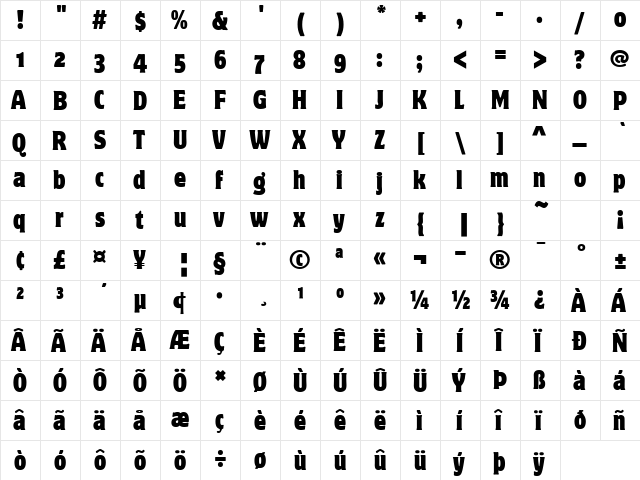
MotterCorpusITCOS-Condensed Roman
Design Context for MotterCorpusITCOS-Condensed Typeface
MotterCorpusITCOS-Condensed takes a measured approach to typography — its balanced proportions and neutral character make it a reliable workhorse for both digital and print work. The condensed width makes it efficient for tight spaces without sacrificing legibility.